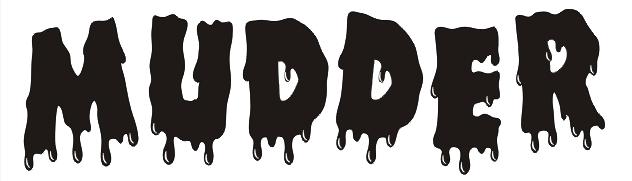
Font that looks like it is dripping??
I am looking for a font, I know I have seen it but cant recall where! Its a font that looks like it is dripping. Any suggestions?
try crypt corel 9 I run corel9 fonts & i've used it before thought halloween but might be crypt or etc.
Ok I am still looking!! I have this image and even tried what the font with no match. Does this help?
The Alien Skin Eye Candy filters have this effect and it gives the text a random appearance, which may or may not be desireable :)